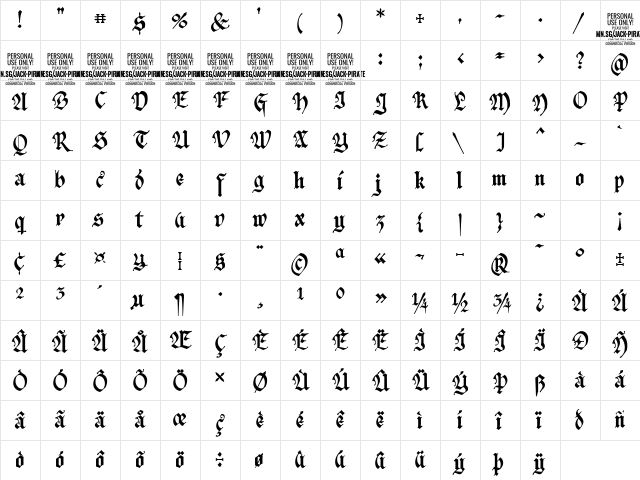
Complete Jack Pirate Alt PERSONAL USE Regular glyph index. Displaying only characters natively supported by Jack Pirate Alt PERSONAL USE Regular font.
Jack Pirate Alt PERSONAL USE is a composed and adaptable typeface that performs quietly and consistently across a wide range of design contexts.